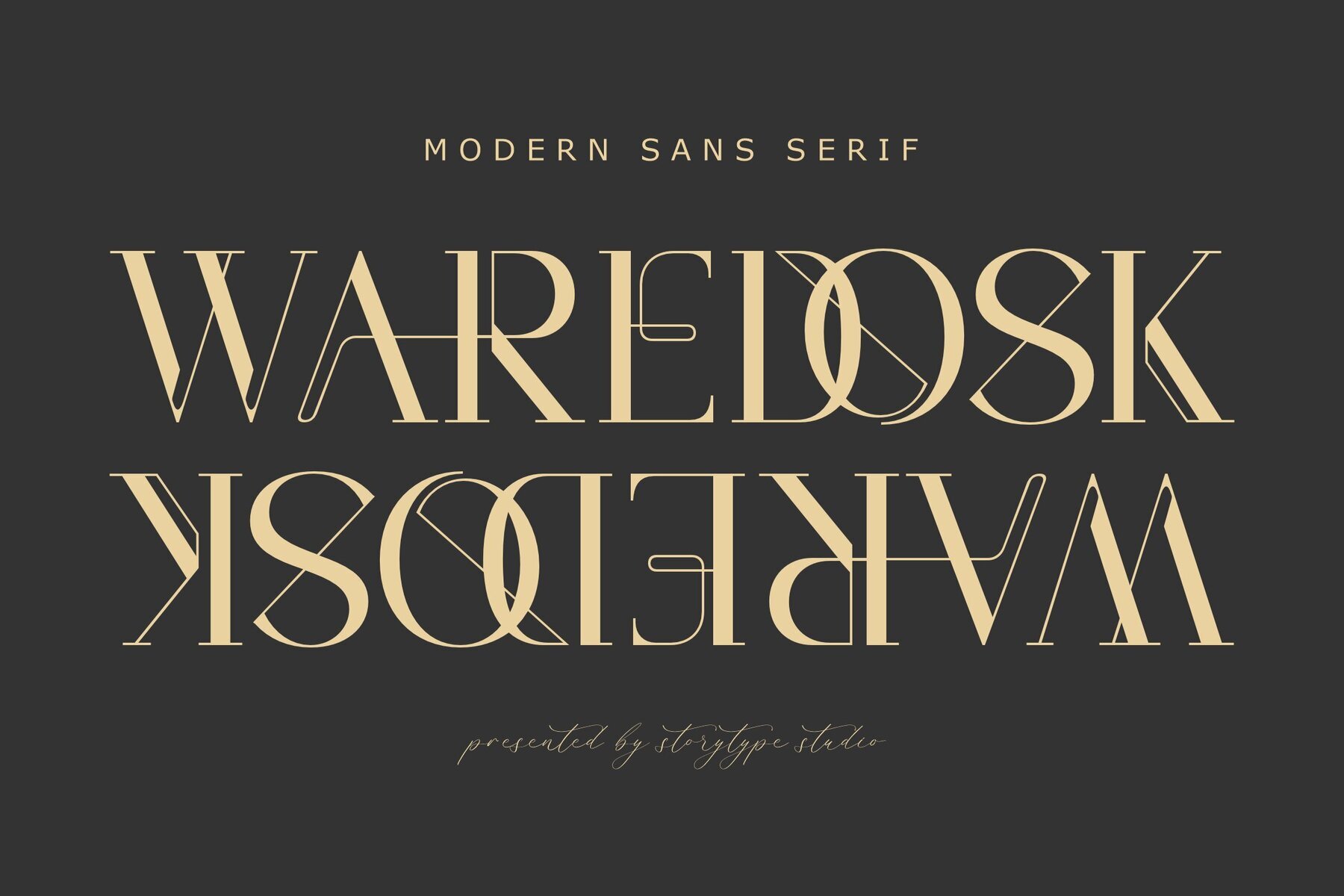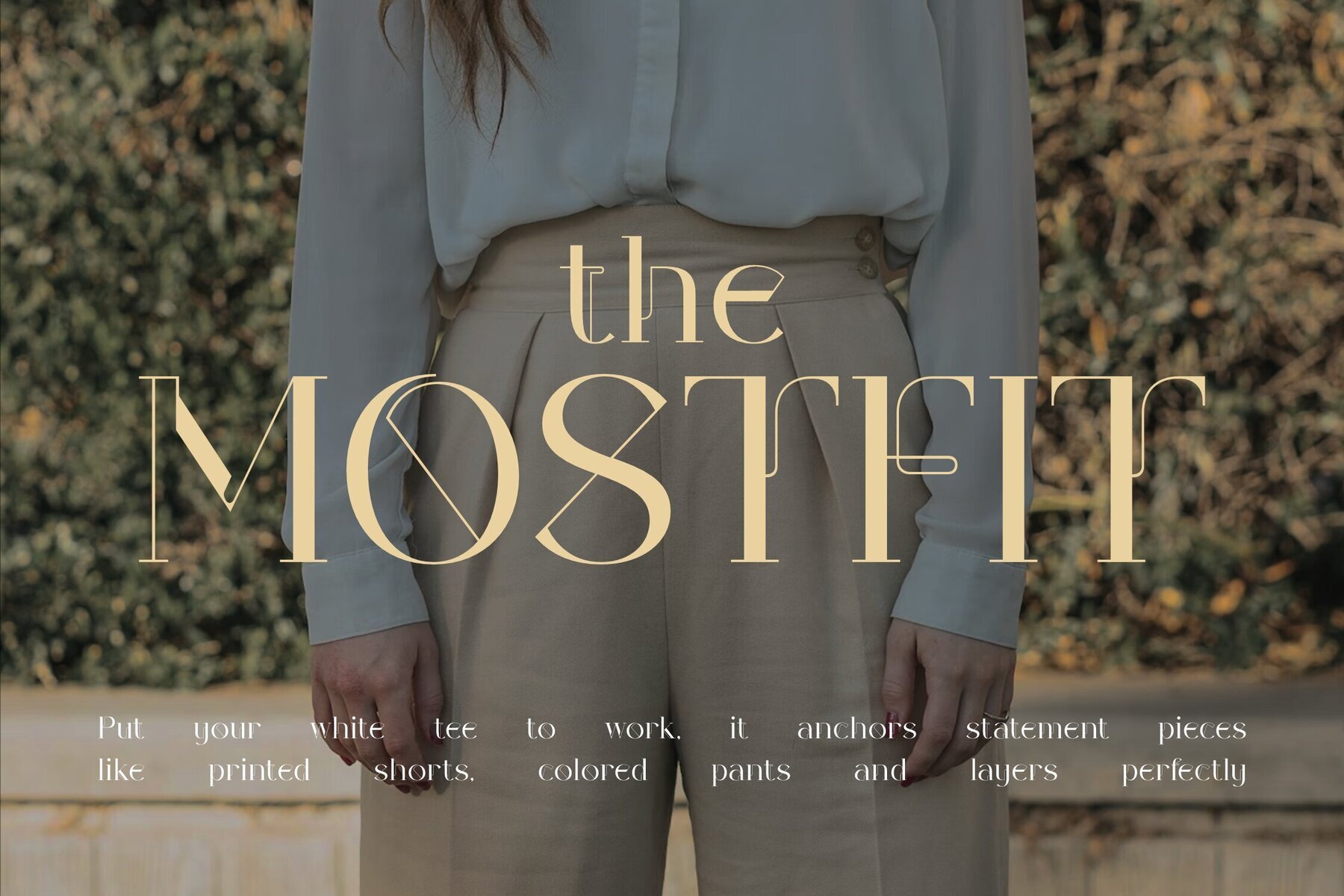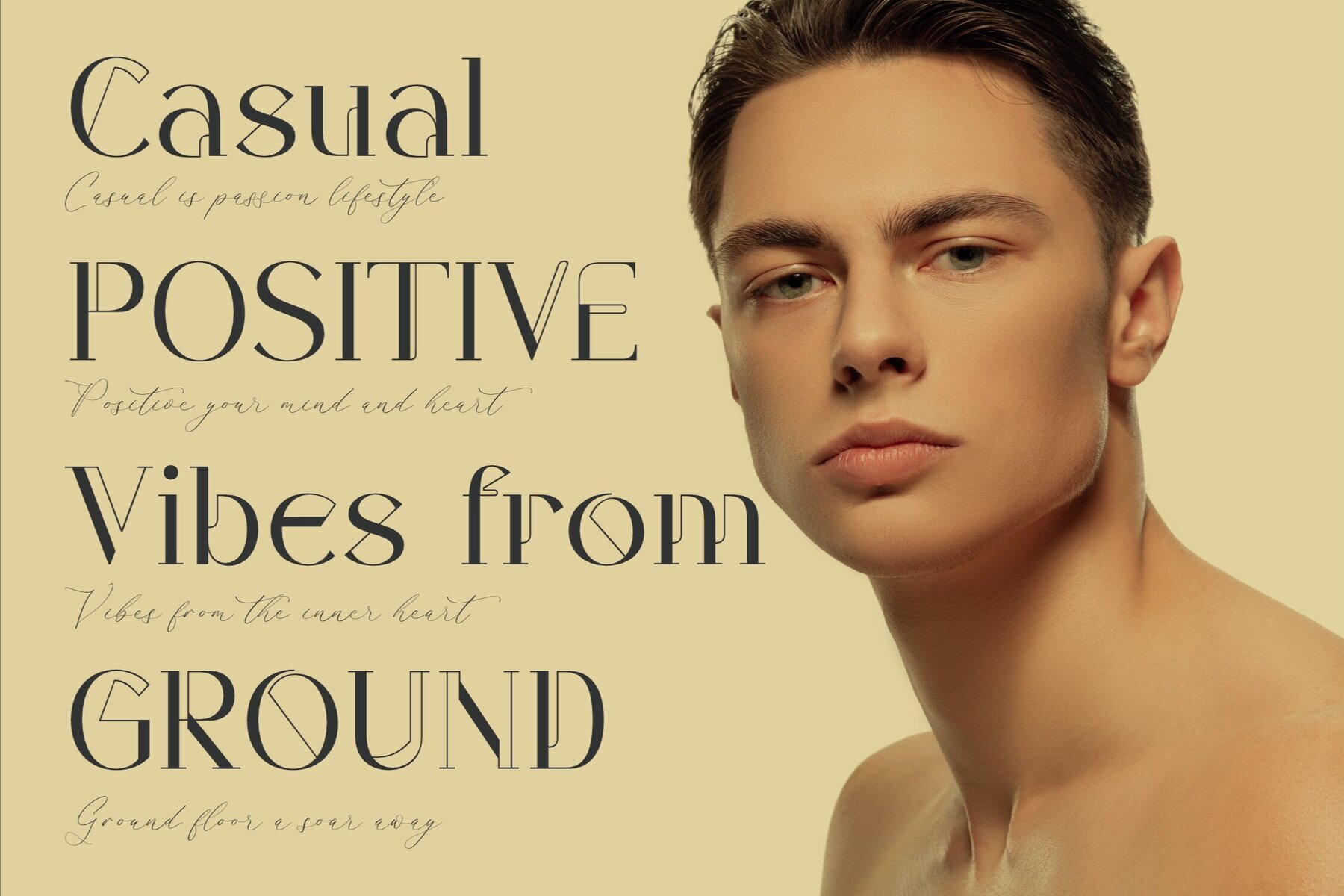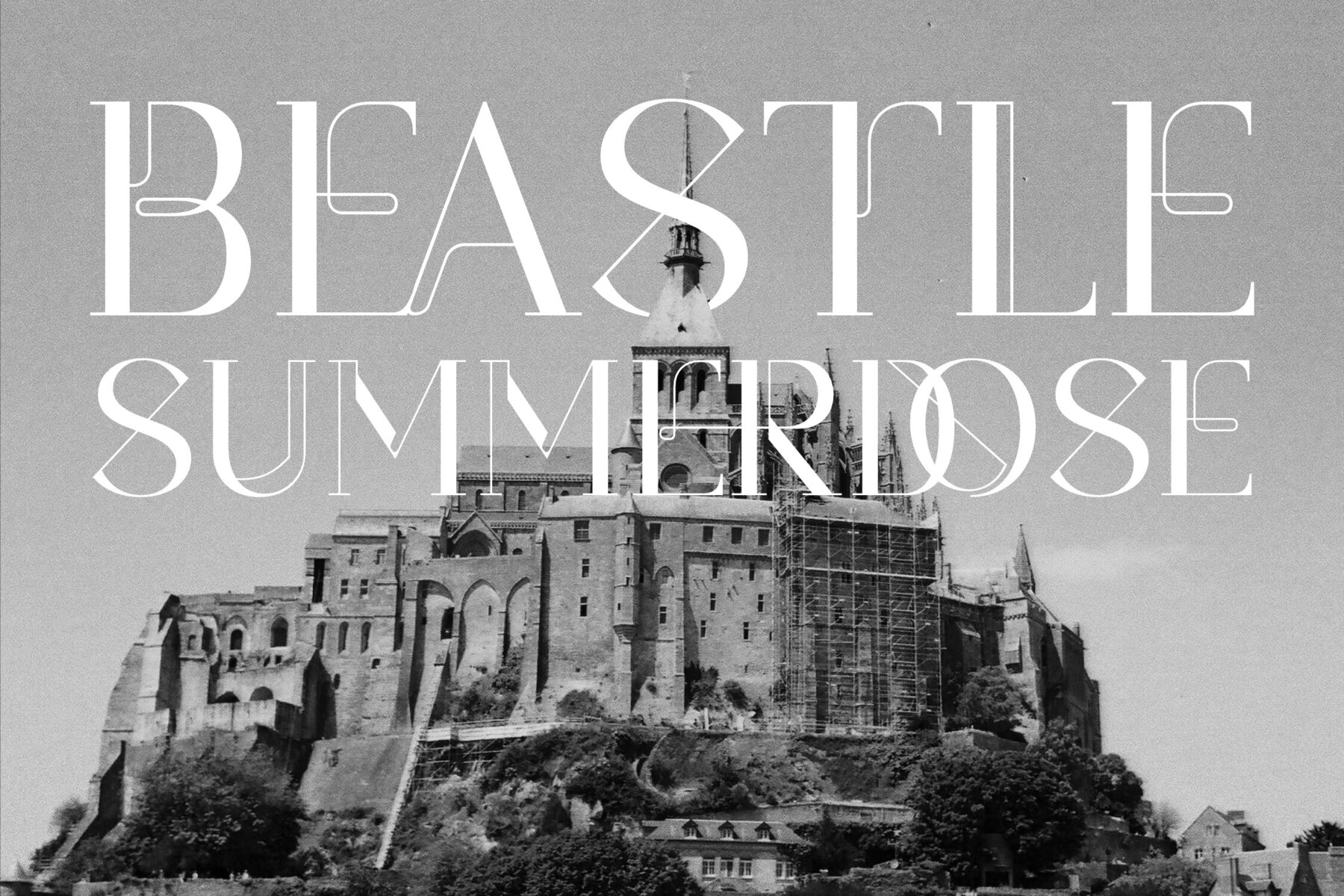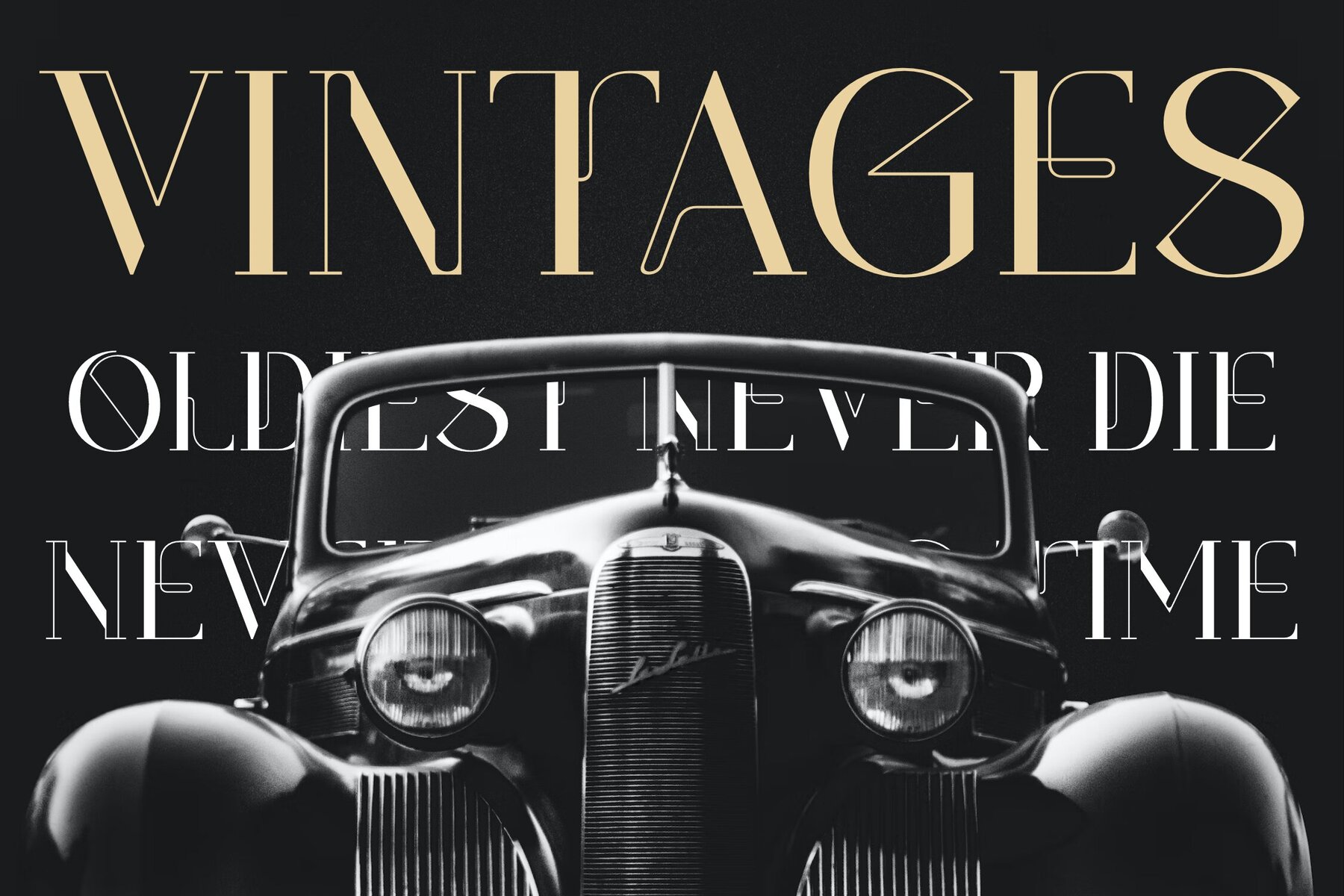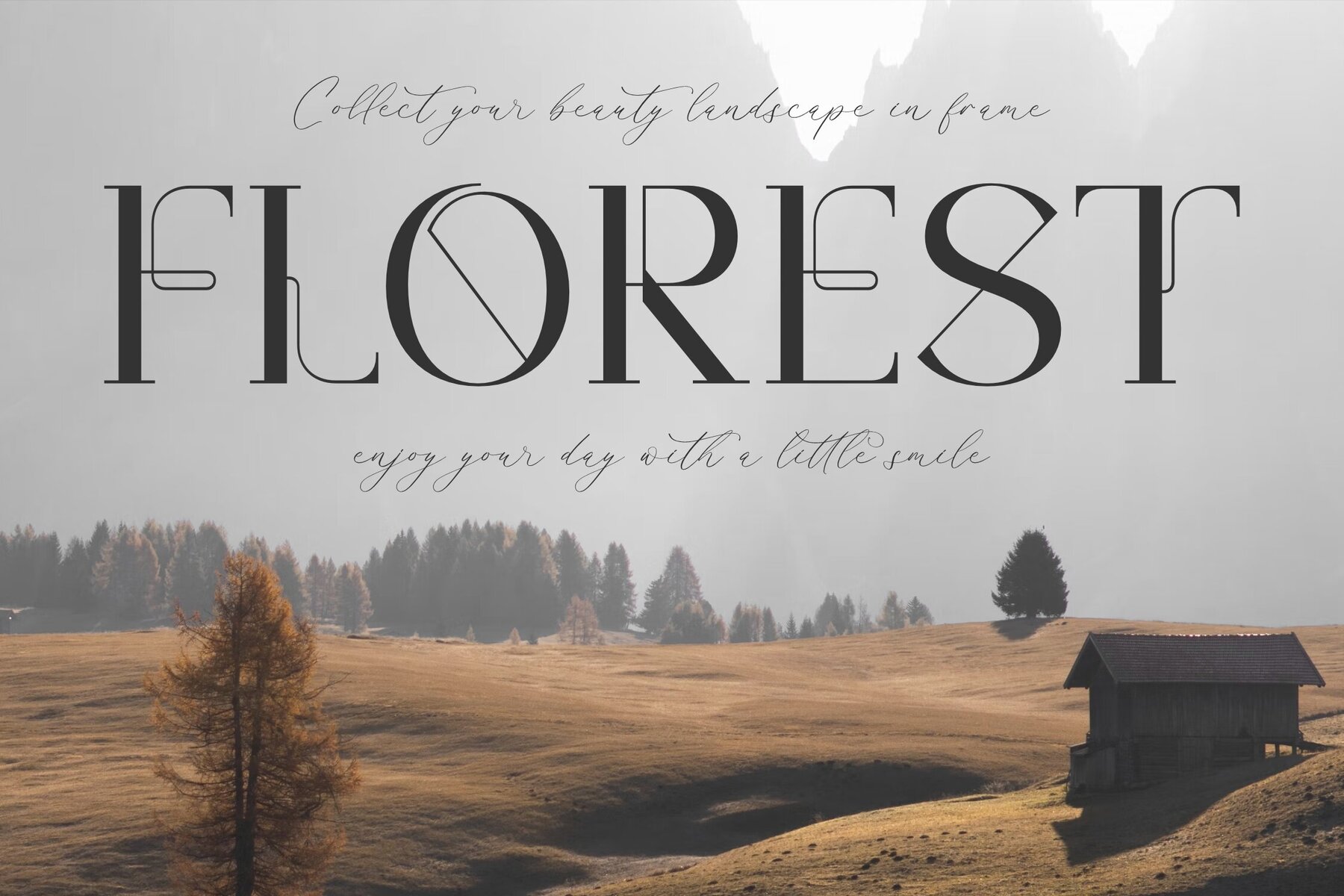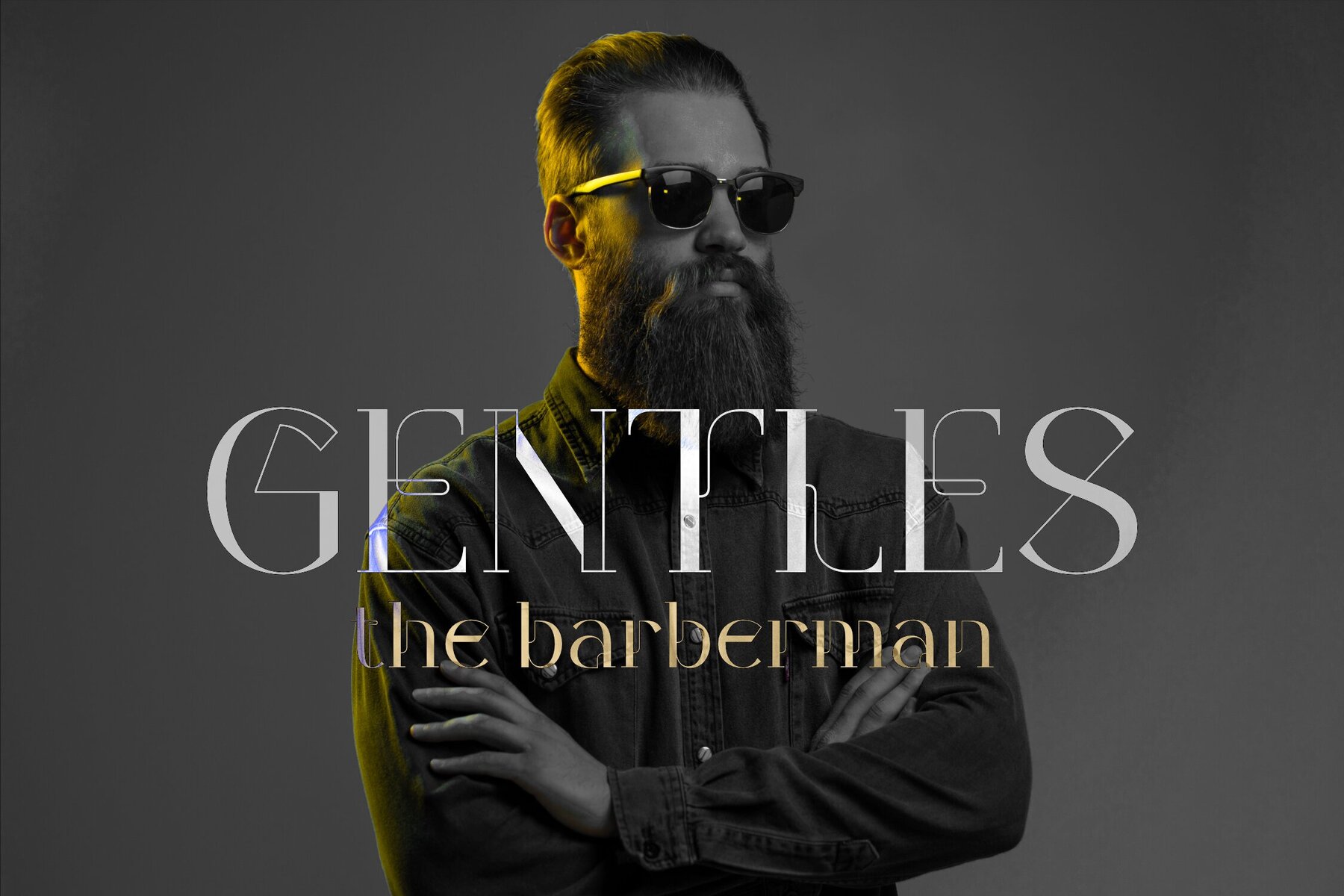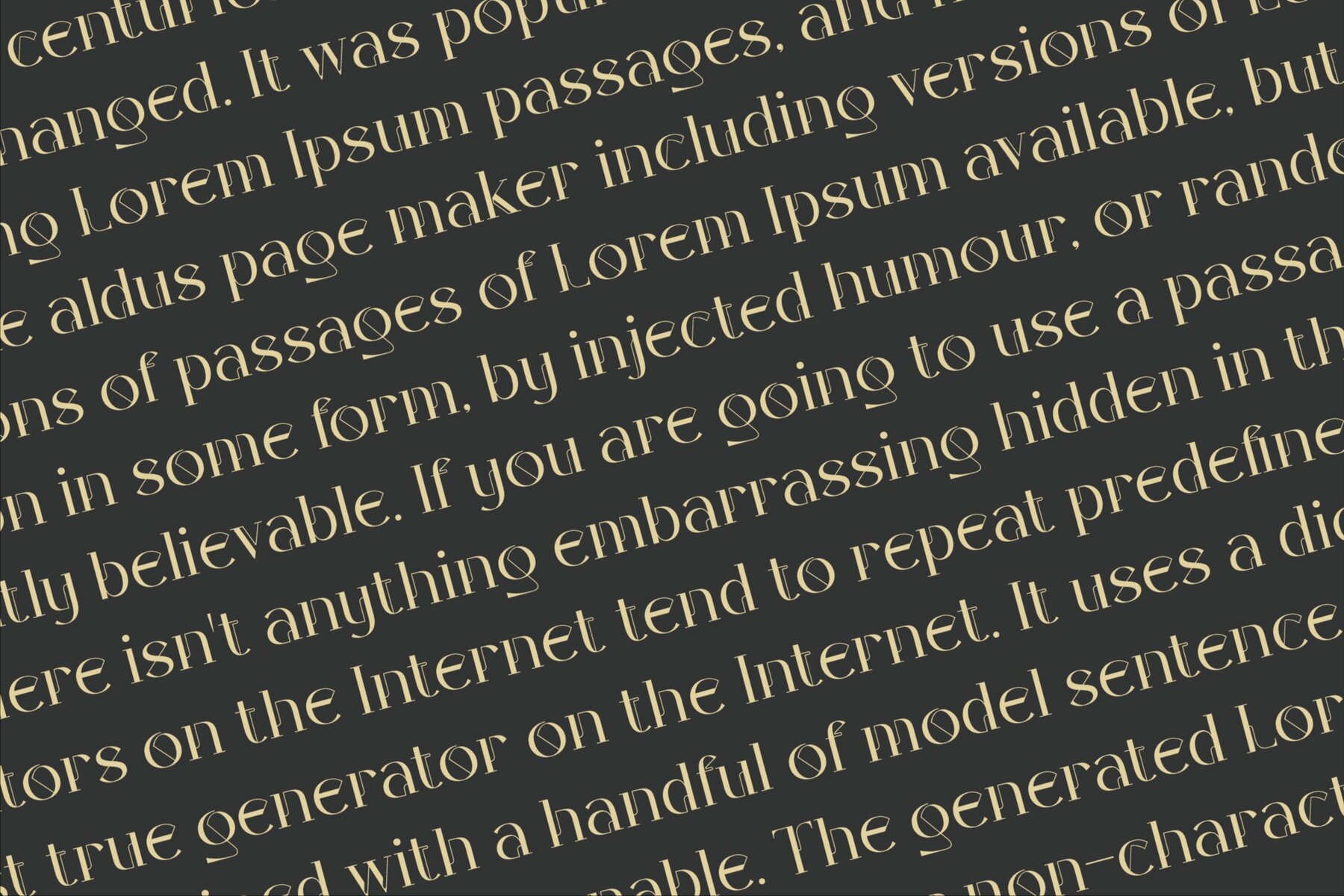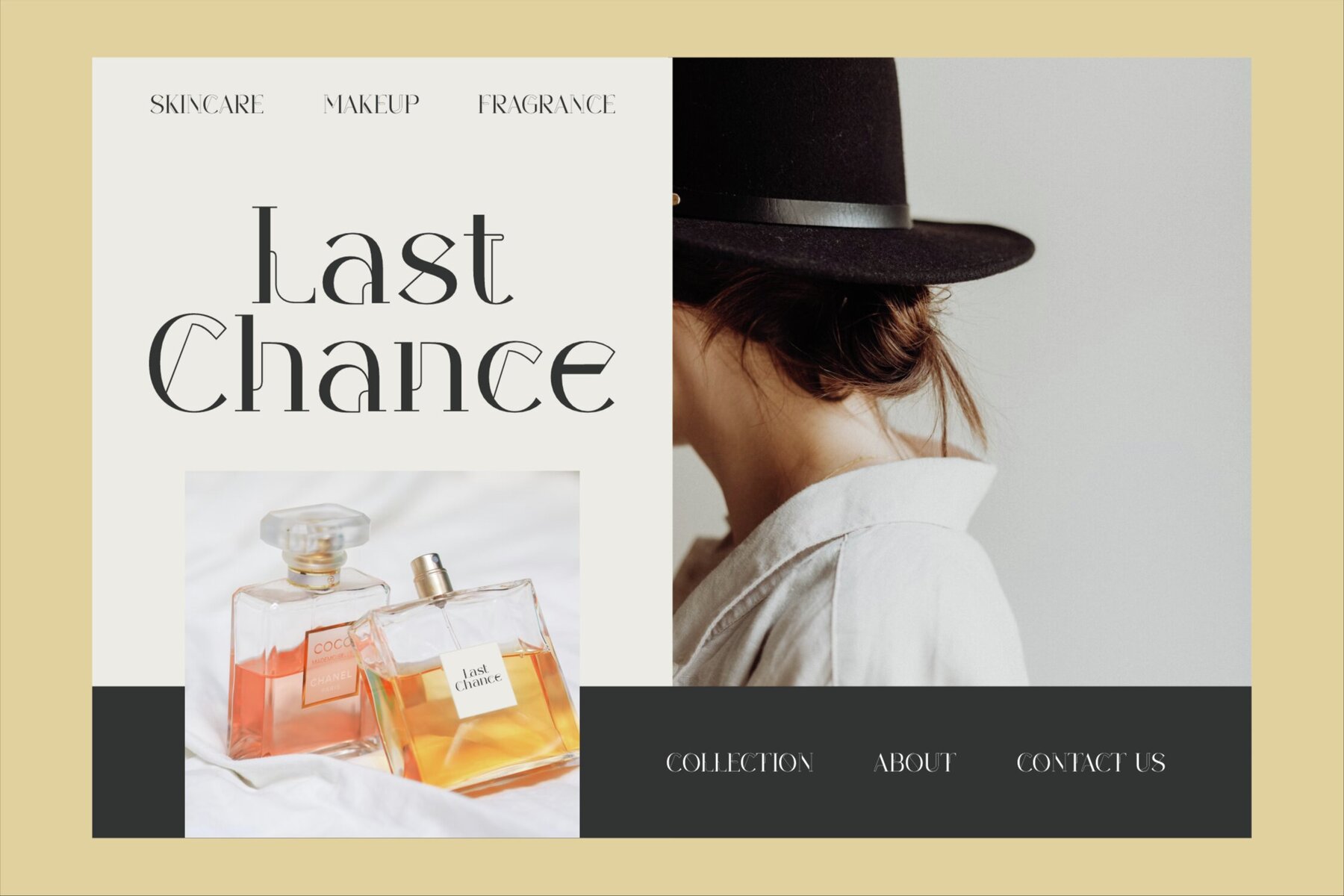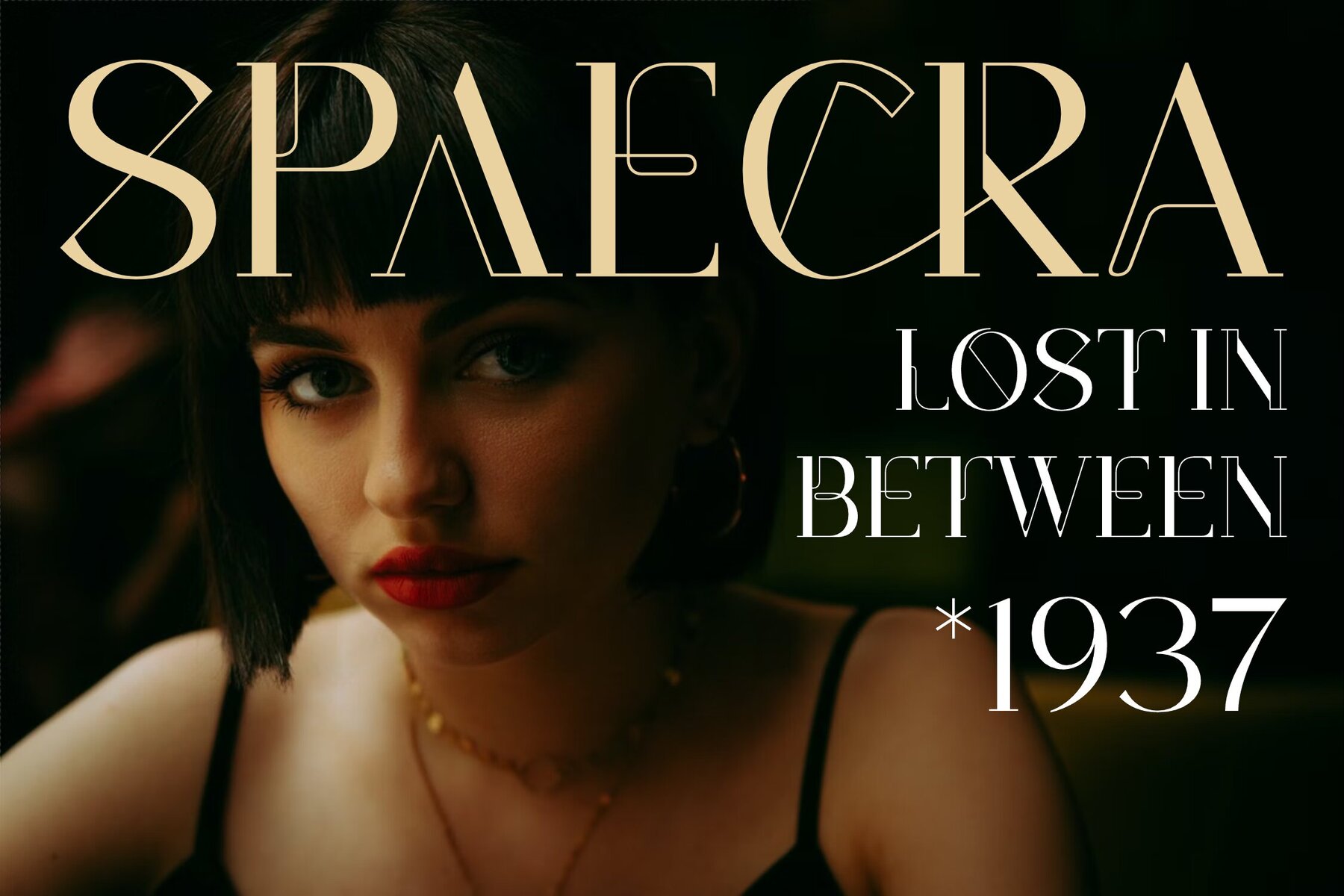
Waredosk Font
The Waredosk typeface beautifully melds modern aesthetics with classic serif design. This unique typeface brings elegance to luxury logos, book titles, fashion brands, and magazine layouts.Waredosk: Modern and Classic Serif Typeface